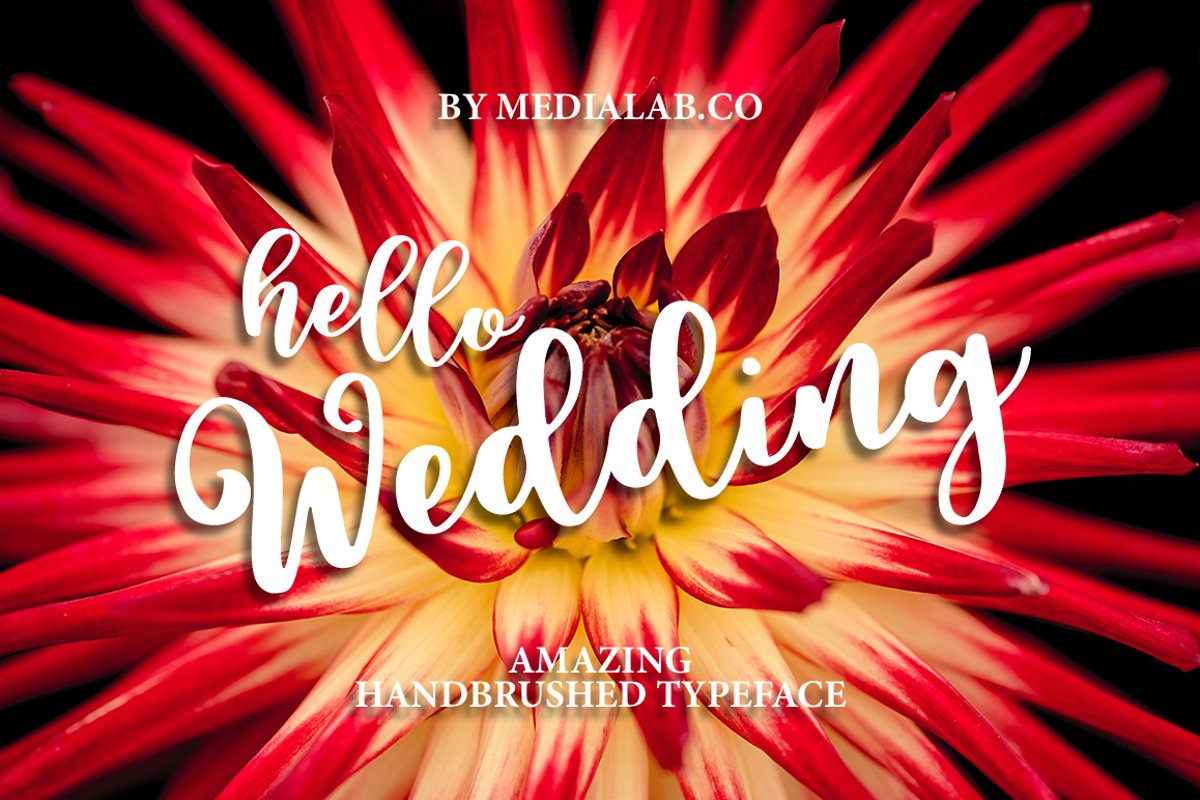
Hello Wedding handwritten font
It's a sweet hand lettered font with swirls and alternates.
Also with this type, you will see a lot of interesting extras.
This brush font is ideal for branding and decorate your any project.This font are perfect for wedding postcard. Or you can create perfect and unique design of your logo, blog, stationery, marketing, magazines and more :)
• Support ALL European Languages